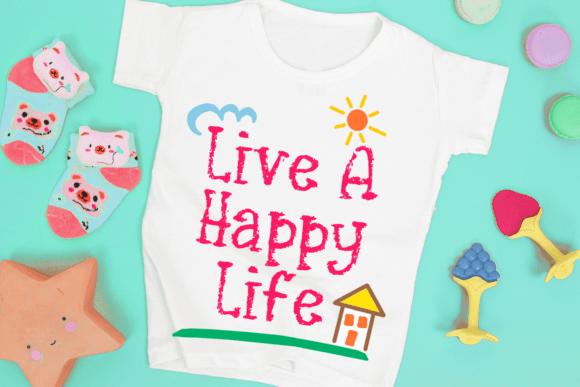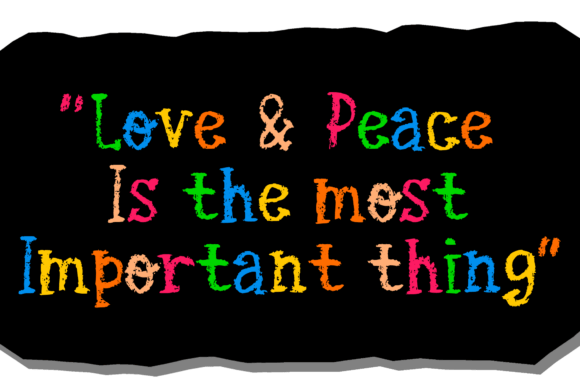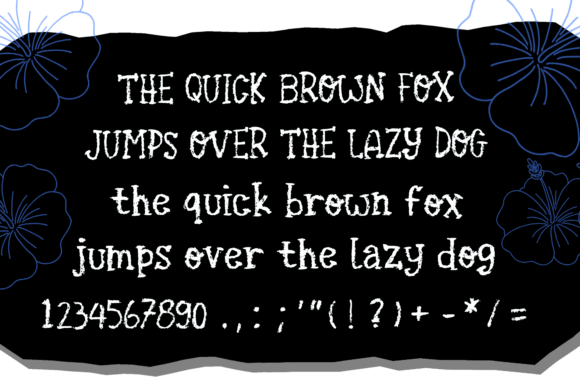
Introduction to Quirky Crayon Font
Quirky Crayon is a fun and playful crayon or chalk handwritten font suitable if you want to add a sense of excitement and happiness to your designs.
It will elevate a wide range of design projects to the highest level You can use this font for many design ideas such as stickers, t-shirt designs, amazing logo designs, magazine or book covers, comics, cartoon drawings, and many more.
Key Features of Quirky Crayon Font